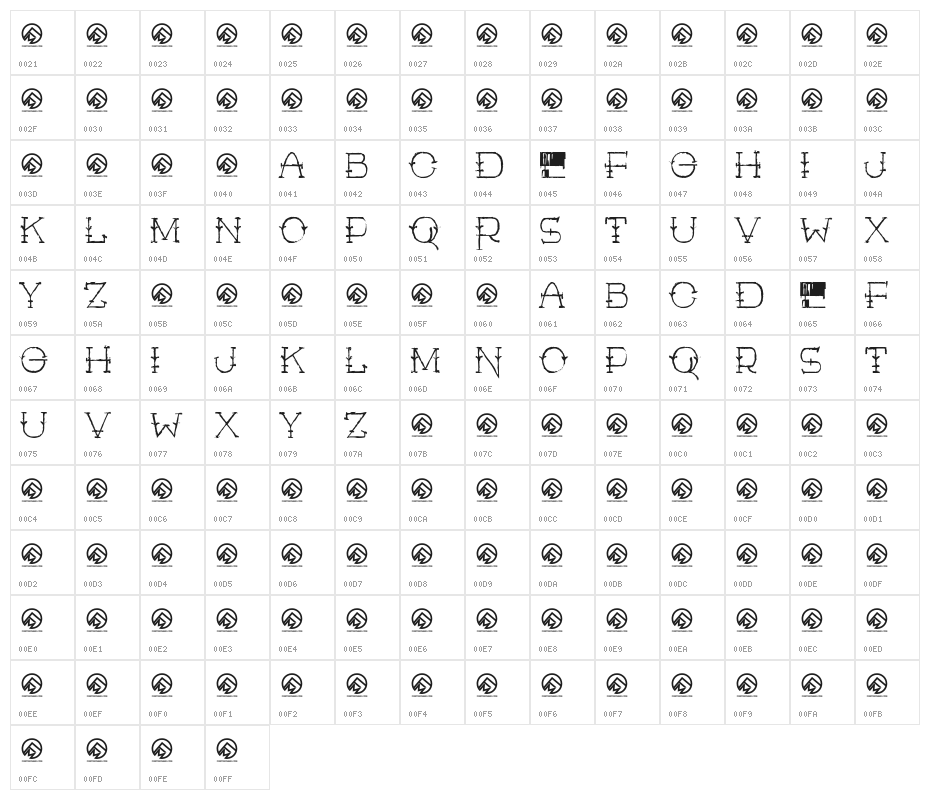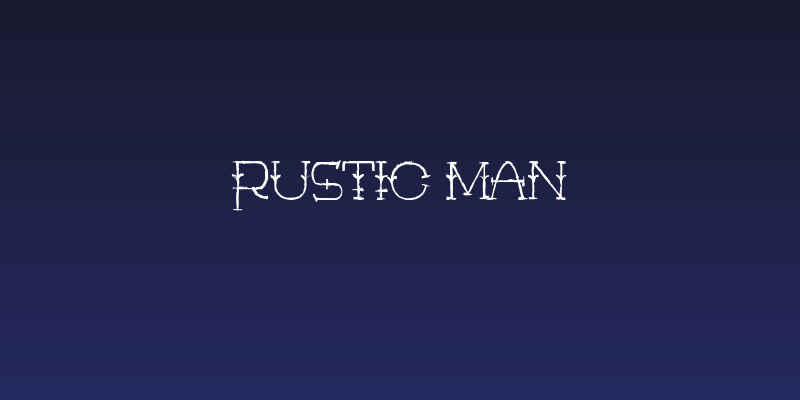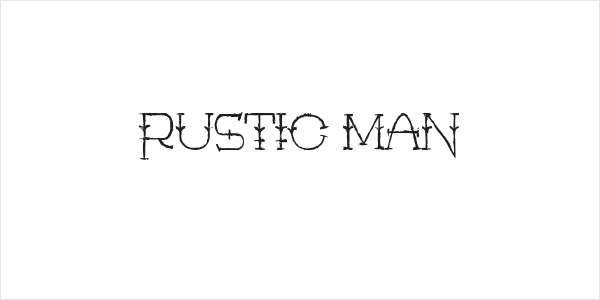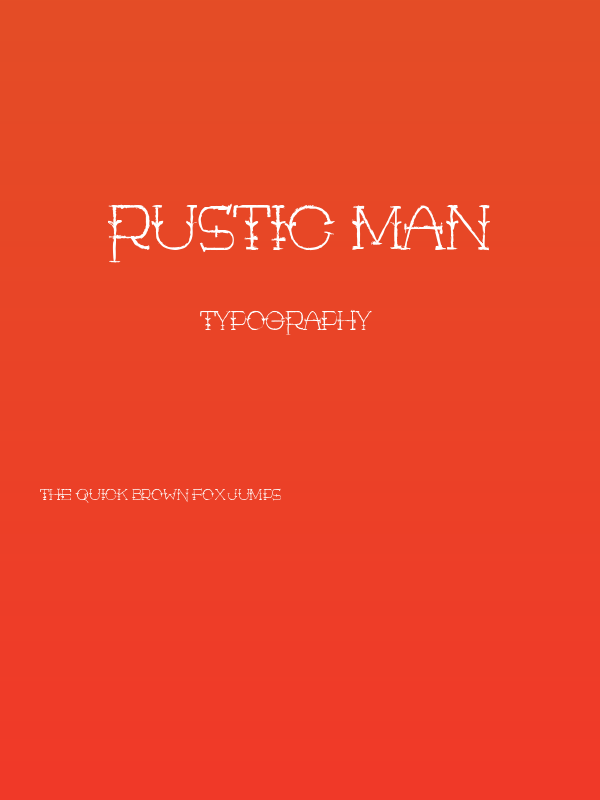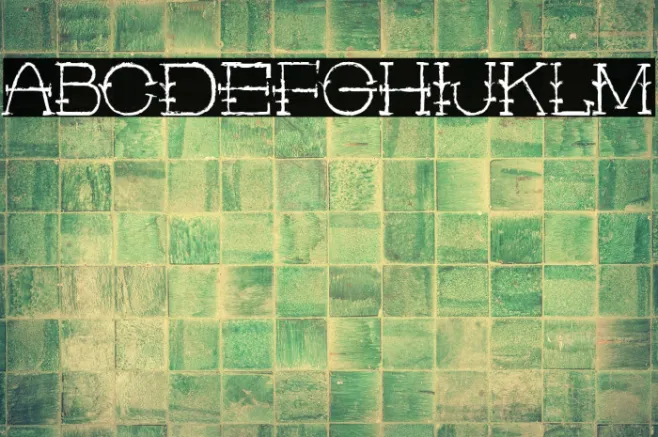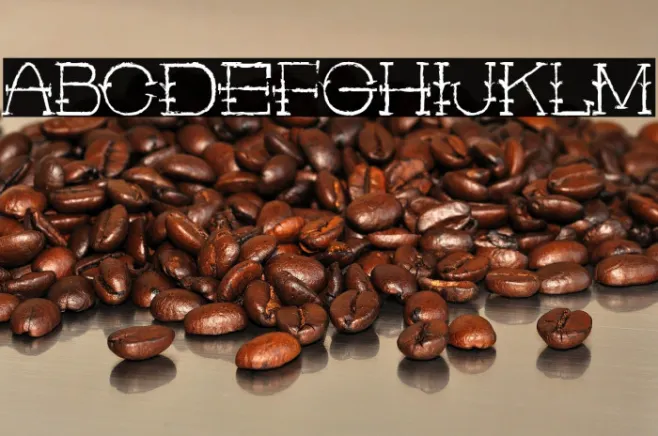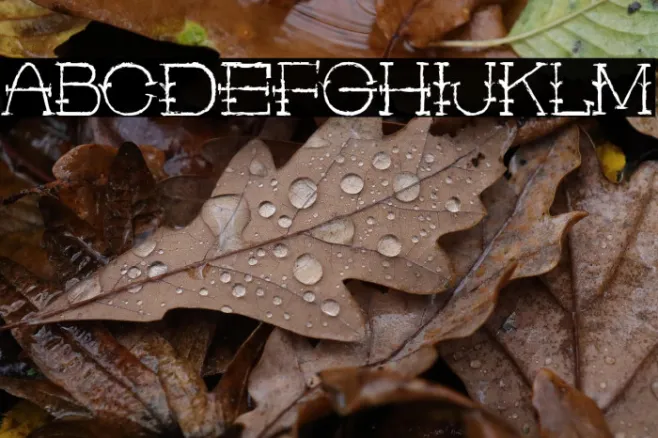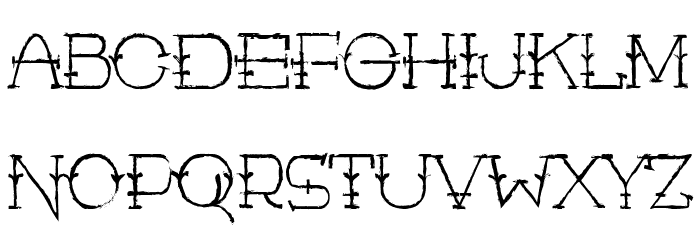
Rustic Man Font
Rustic Man Description
This font features a rugged, distressed appearance with a design that mimics the look of barbed wire. The characters are bold and striking, with uneven edges and a textured finish that gives them a weathered, rustic feel. The uppercase letters are consistent in height, while the overall style conveys a sense of toughness and durability. This font is ideal for projects that require a gritty, industrial aesthetic, such as posters, signage, or branding for outdoor or adventure-themed products.
| Overall Style | Rustic, Industrial |
| Proposed Projects | Ideal for posters, signage, branding for outdoor or adventure-themed products, and any project needing a gritty, industrial look. |